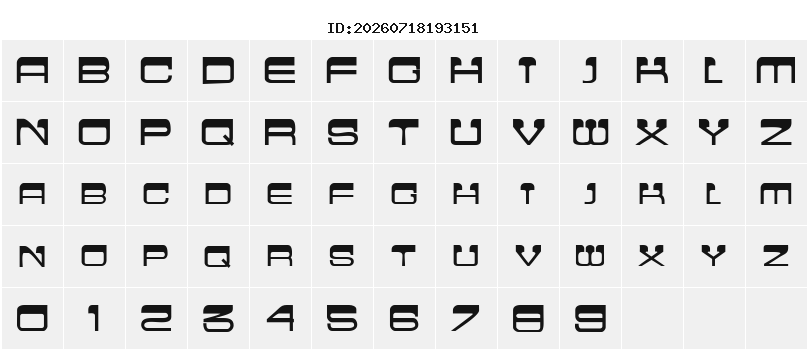
About CrewCutCaps.ttf
CrewCutCaps.ttf is a modern, elegant sans-serif font designed for ultimate readability and visual harmony. Perfect for branding, headlines, web design, and print materials.